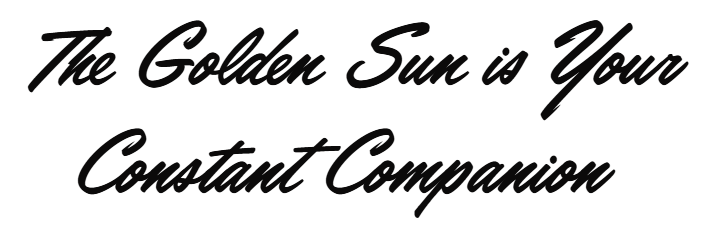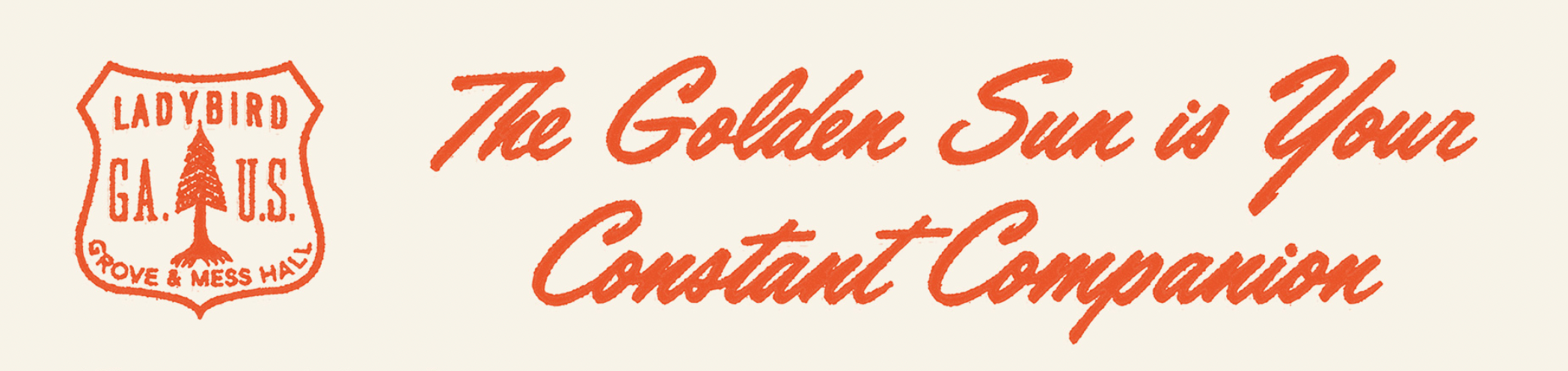
Looking for the script typeface in this piece from Ladybird
I imagine this one is roughened once flattened, but I am looking for the base typeface for "The Golden Sun is Your Constant Companion" in this image. It is flattened in all instances on their website.